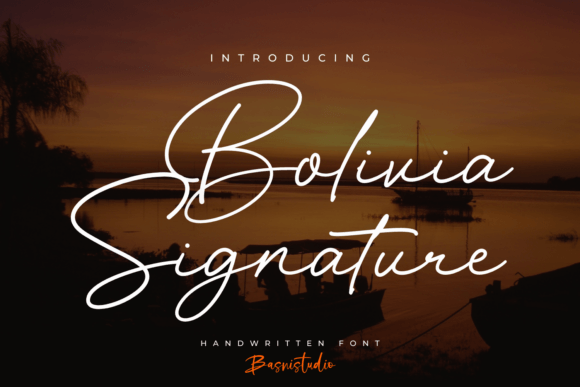
Have you ever sat at your desk, staring blankly at a blank page or screen, waiting for the perfect font to strike? That’s exactly what happened to me last week. I was working on a branding project and nothing seemed quite right. But then, like a breath of fresh air, I discovered the Bolivia Signature Font.
This beautifully crafted font is designed with natural flow and precision in mind, making it the perfect choice for branding, websites, and editorial design. With all character letters, multilingual support, punctuation, and ligatures included, you’ll have everything you need to bring your designs to life. And the best part? It’s easily accessible in software that supports OpenType features, so you can get creative right away.
Whether you’re a seasoned designer or just starting out, the Bolivia Signature Font is a valuable addition to your toolkit. Its versatility and high-quality design make it a must-have for any project, and its ease of use means you can focus on what really matters – creating something amazing.
Bolivia Signature Font Key Features
- Font Family: Bolivia Signature Font is a unique, high-quality font designed specifically for signatures. It’s available in three font styles: Regular, Italic, and Bold.
- Unique Characteristics: The Bolivia Signature Font features a unique, flowing design that mimics the natural movement of a handwritten signature. It includes subtle variations in letterforms and connections between letters, making it highly legible and authentic.
Bolivia Signature Font Review
Overall, I’d say Bolivia Signature Font is a solid choice for designers looking for a unique and elegant font. ✨ Here are some of its strengths:
- ✨ Unique and stylish design that sets it apart from other fonts.
- ✨ High-quality vectors, making it perfect for logos, business cards, and other print materials.
- ✨ Great for creating a luxurious and sophisticated feel in designs.
However, like any font, it’s not without its limitations. ⚠️ Here are some potential drawbacks:
- ⚠️ Some characters may not display correctly in certain fonts or operating systems.
- ⚠️ Limited character set, which may not be ideal for languages that require a wide range of characters.
- ⚠️ Can be quite bold and overwhelming if used extensively in a design.
Overall, I think Bolivia Signature Font is a great addition to any designer’s toolkit. While it may have some limitations, its unique design and high-quality vectors make it a valuable resource for creating sophisticated and luxurious designs.
The Bolivia Signature Font is ideal for use in branding, marketing materials, and personal documents. It’s particularly well-suited for creating a professional and elegant look in business cards, resumes, and presentations.
Getting the Most Out of the Bolivia Signature Font
To get the most out of the Bolivia Signature Font, experiment with different font sizes, colors, and styles to create a unique and visually appealing look. You can also pair the font with other fonts or graphics to add visual interest and depth to your designs.